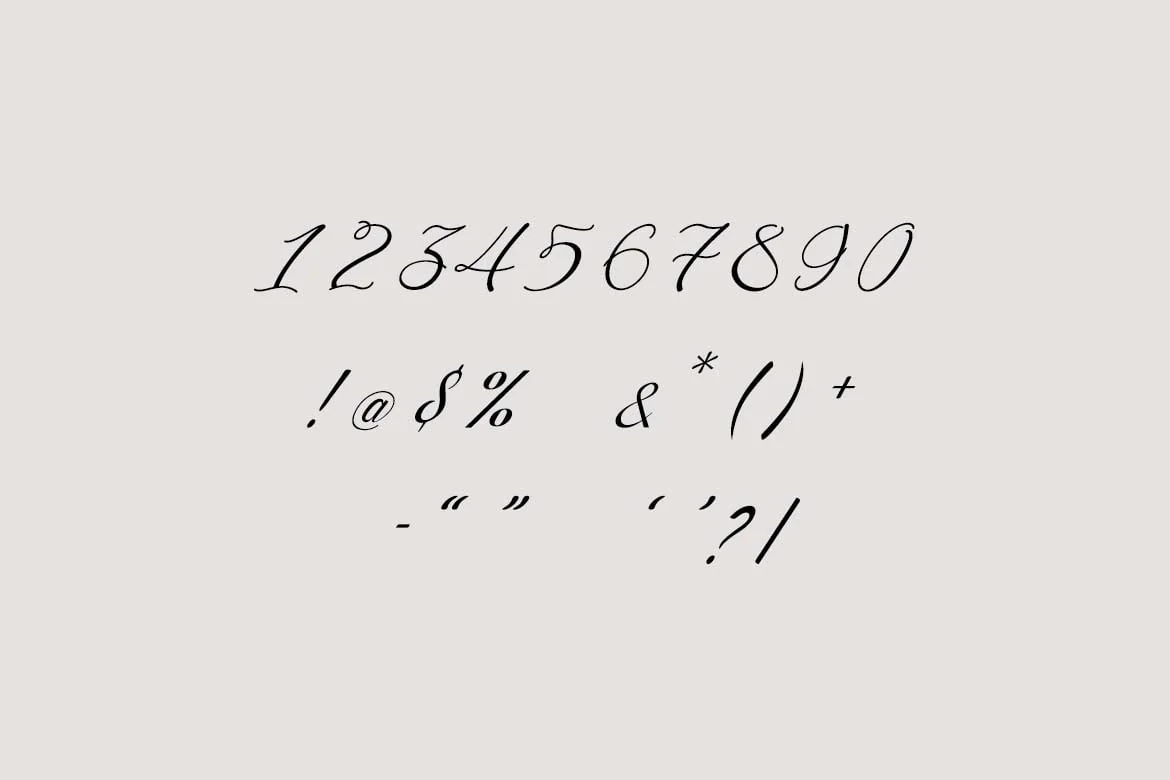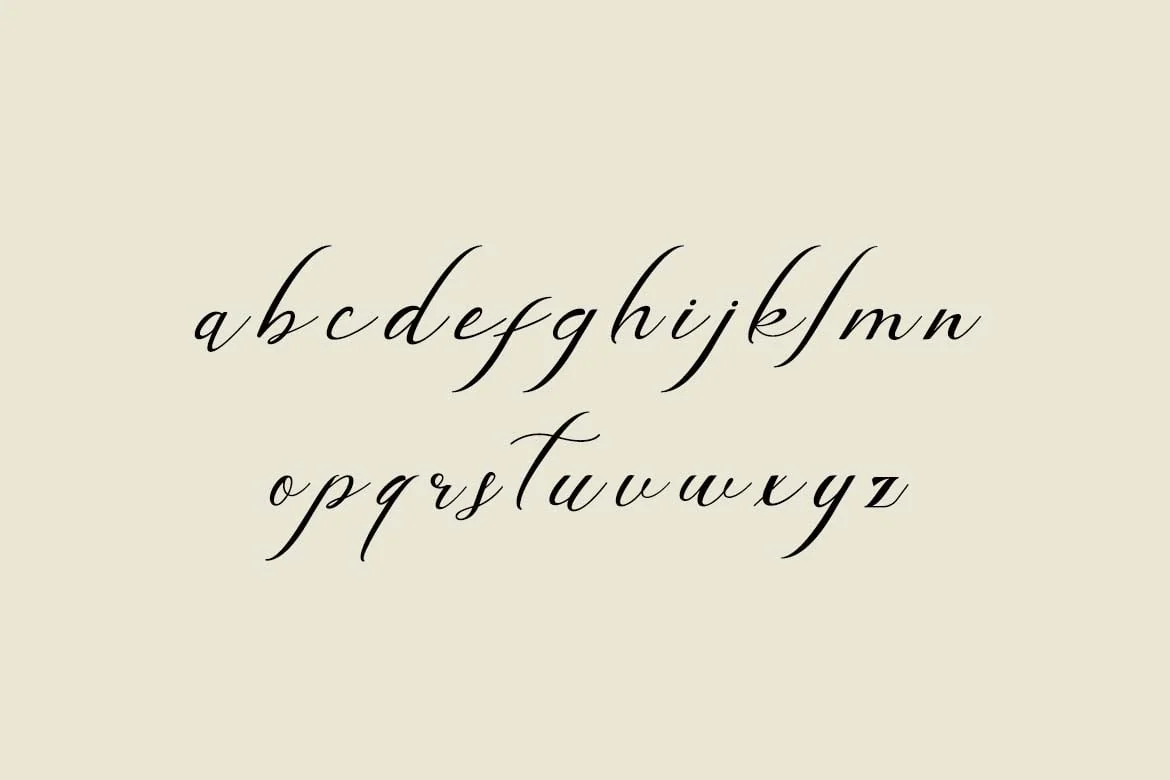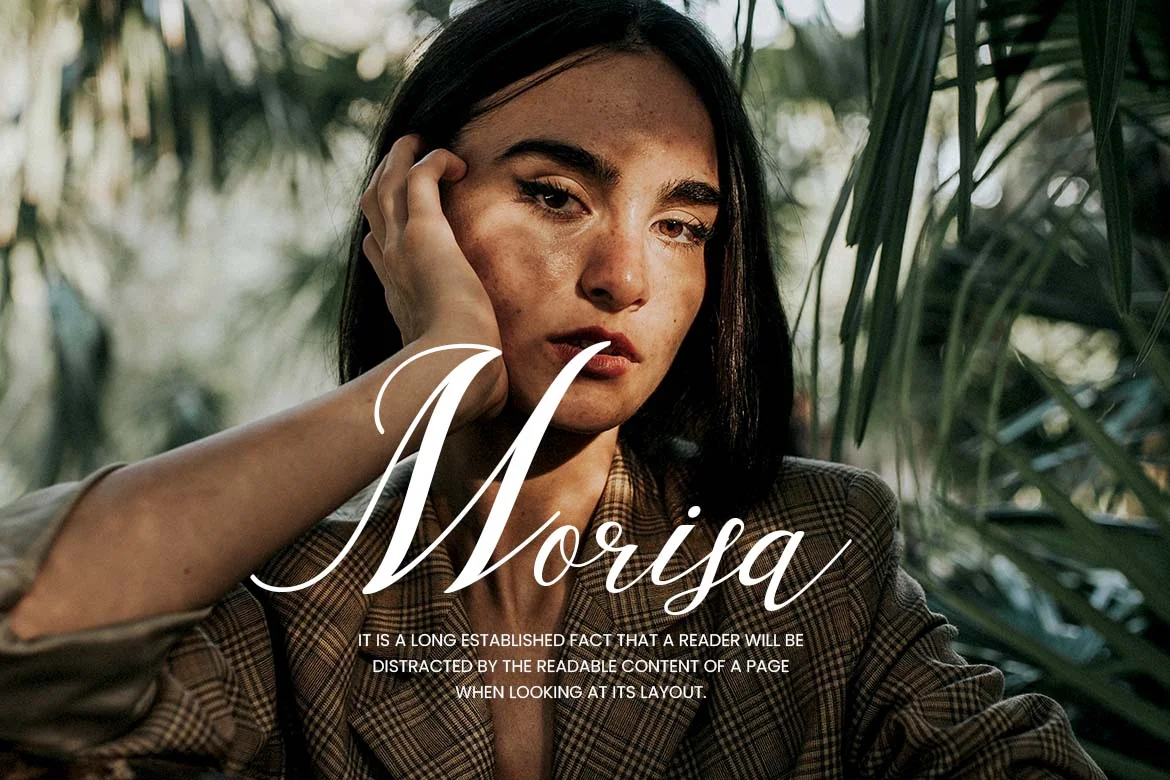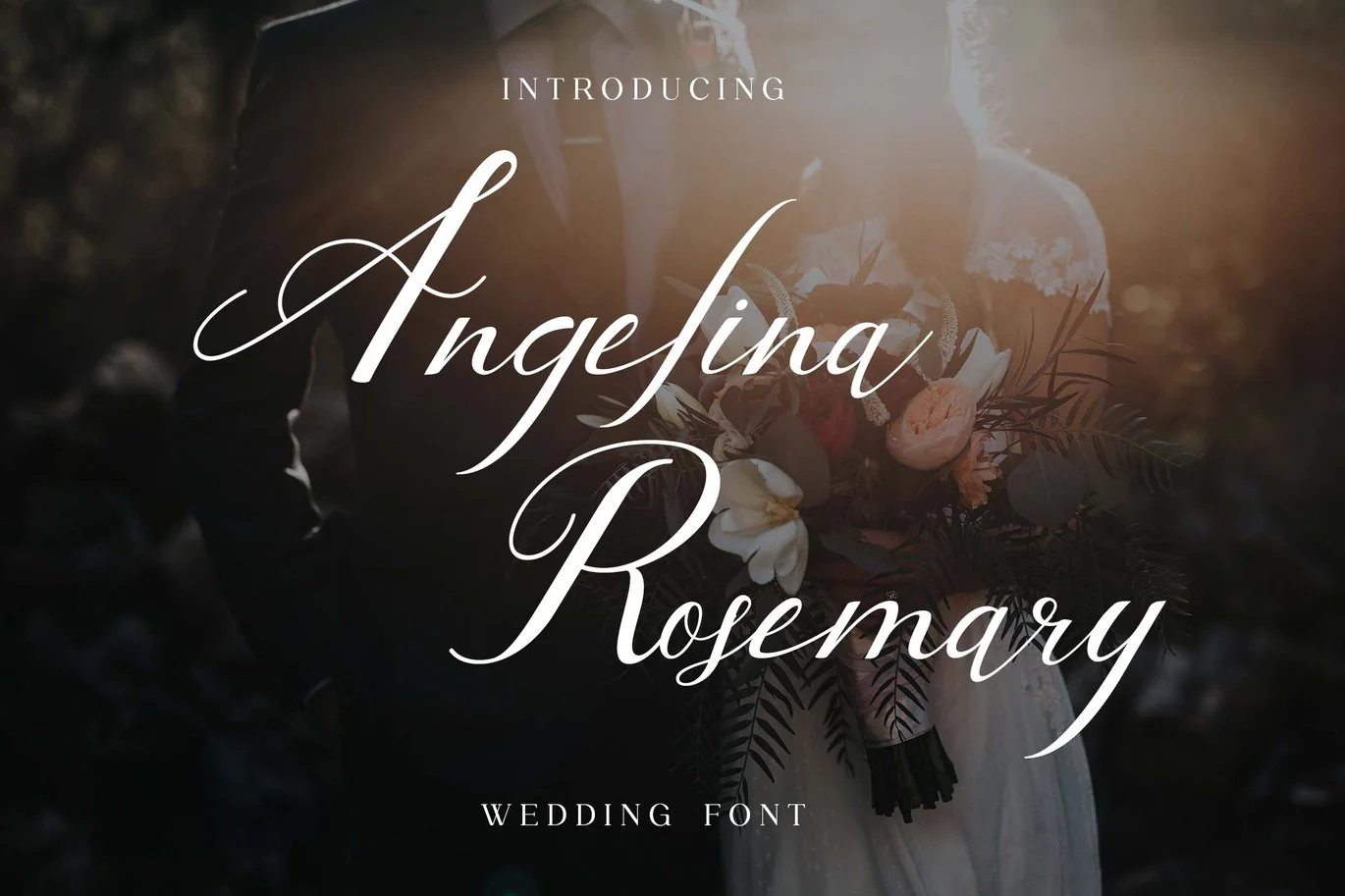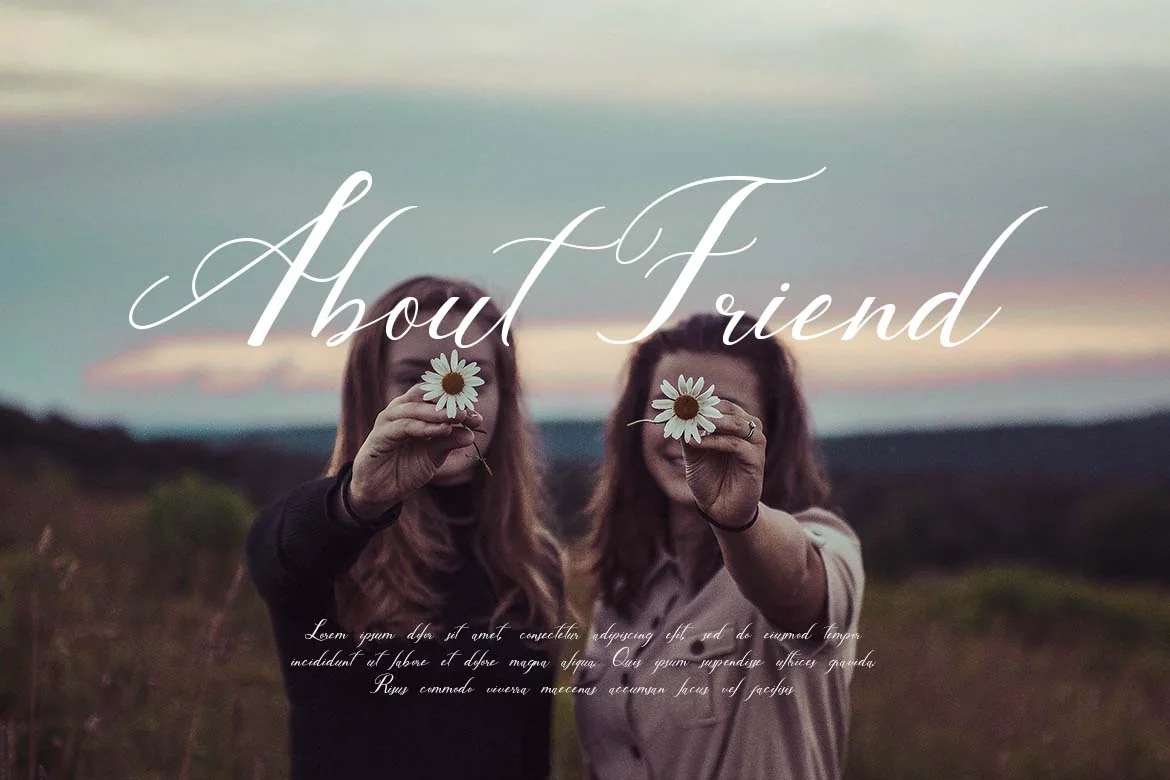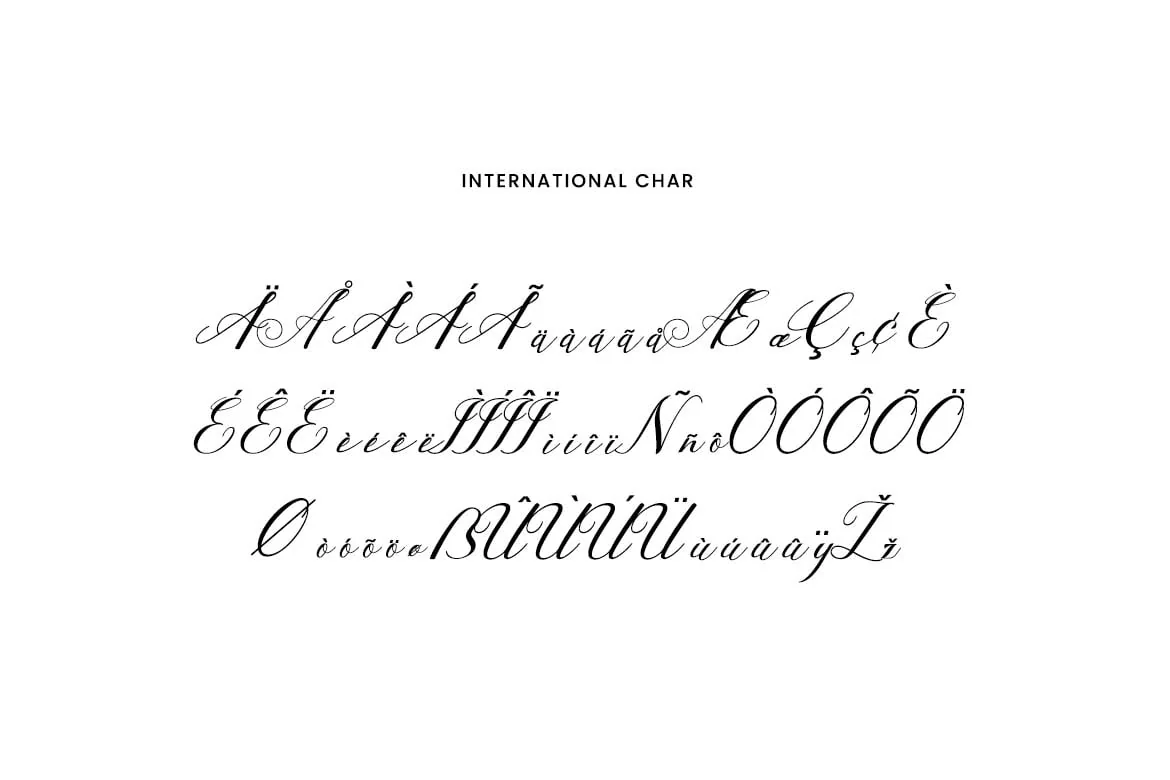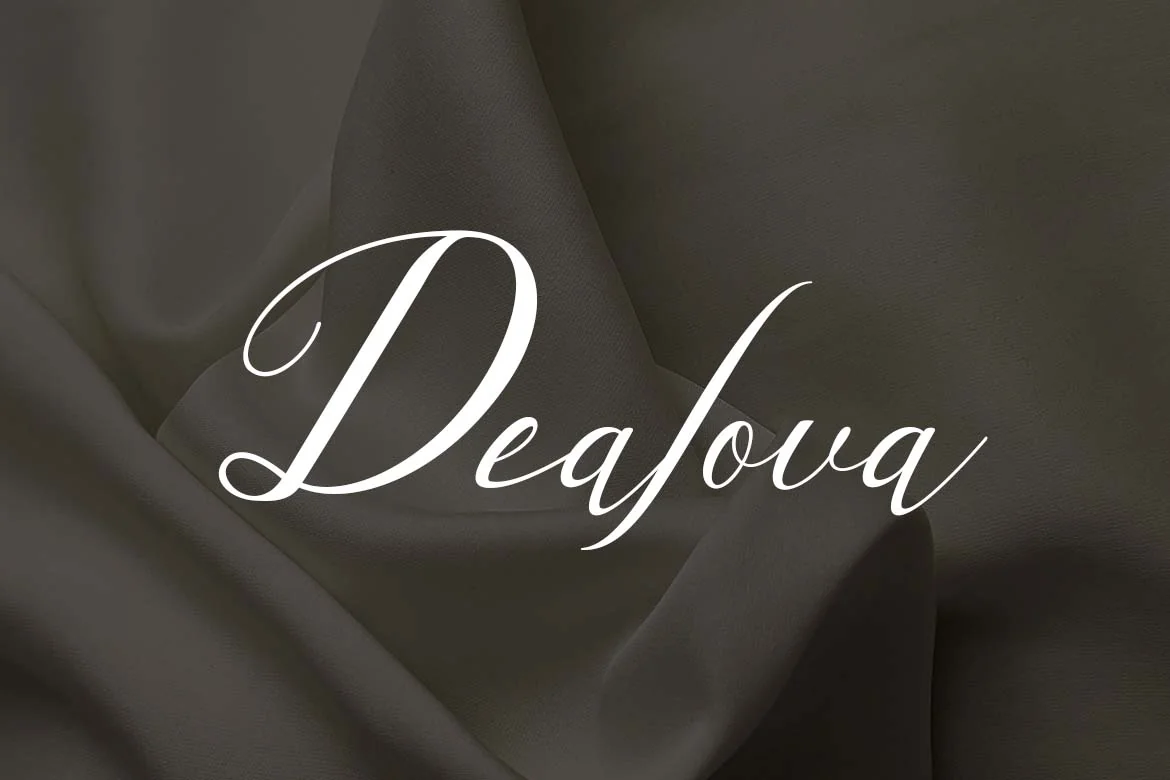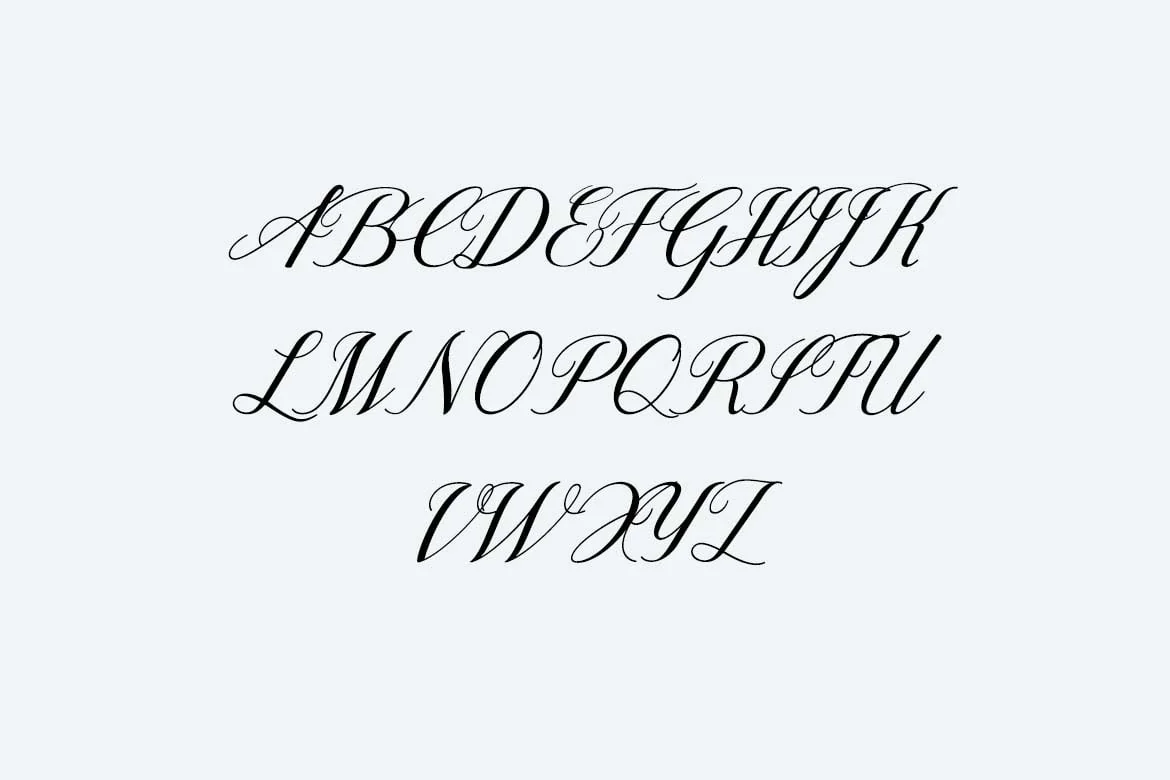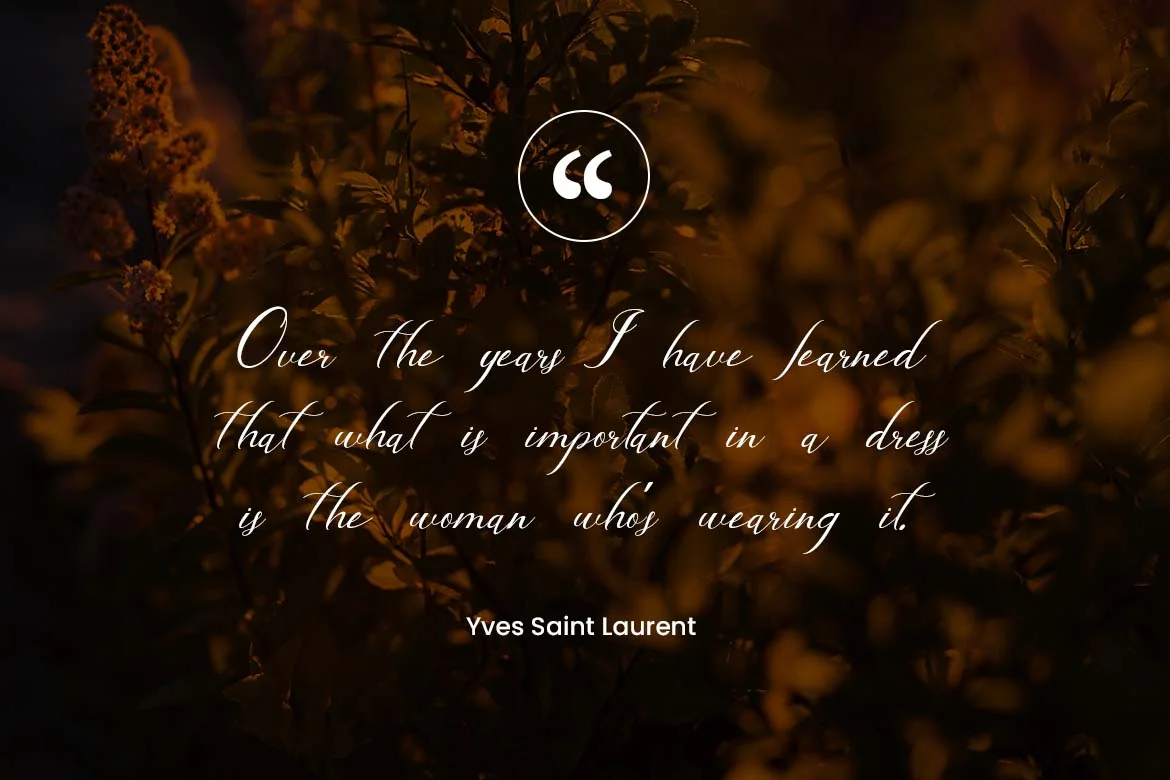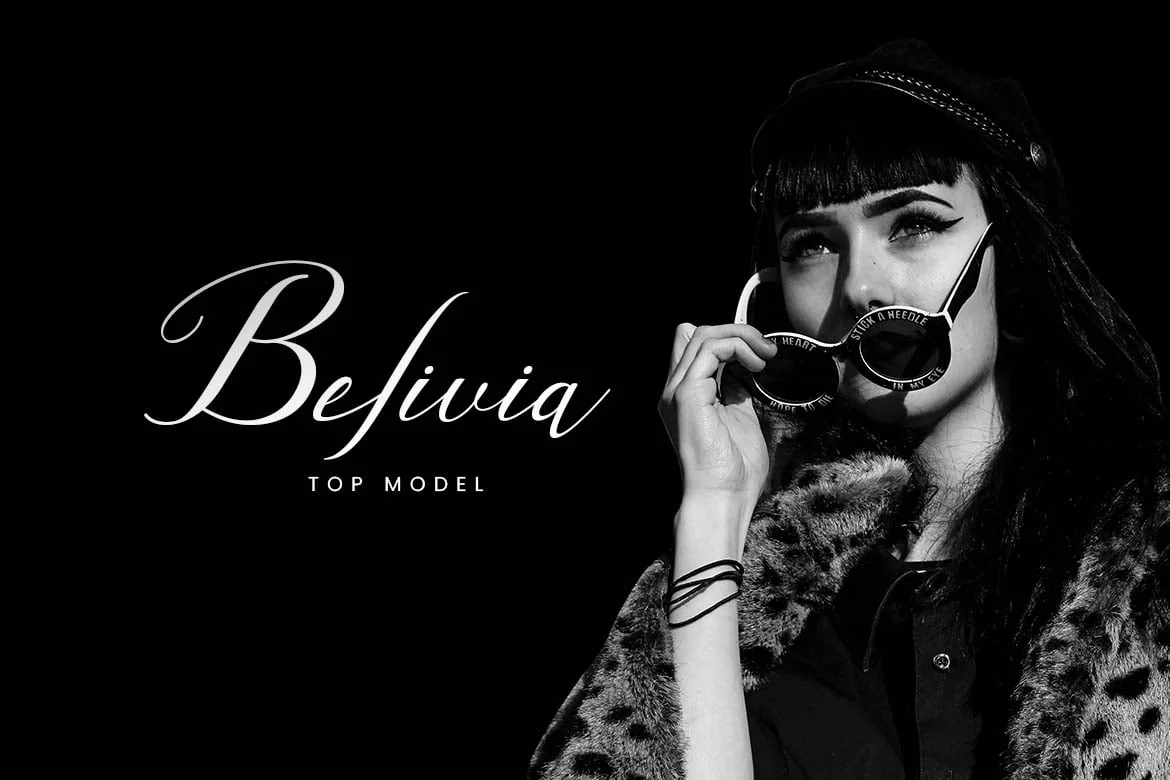
Angelina Rosemary Script Wedding Font
Introducing our new product the name is Angelina Rosemary Script Wedding Font. Angelina Rosemary Script Wedding Font that feels beautiful classy, elegant, and modern. This font is perfectly suited for a wide variety of projects, such as signature, stationery, logo, wedding, typography quotes, magazine or book covers, website headers, branding, packaging design, and more. Also, fashion-related branding or editorial design displays both masculine and feminine qualities.